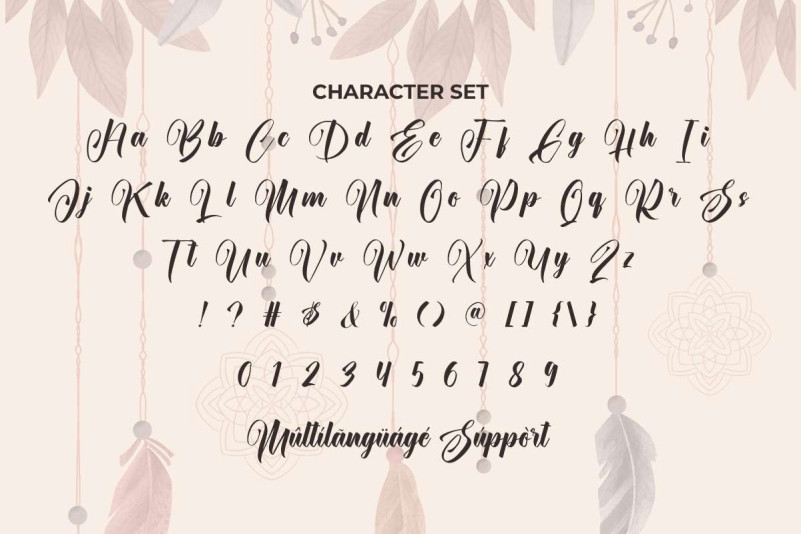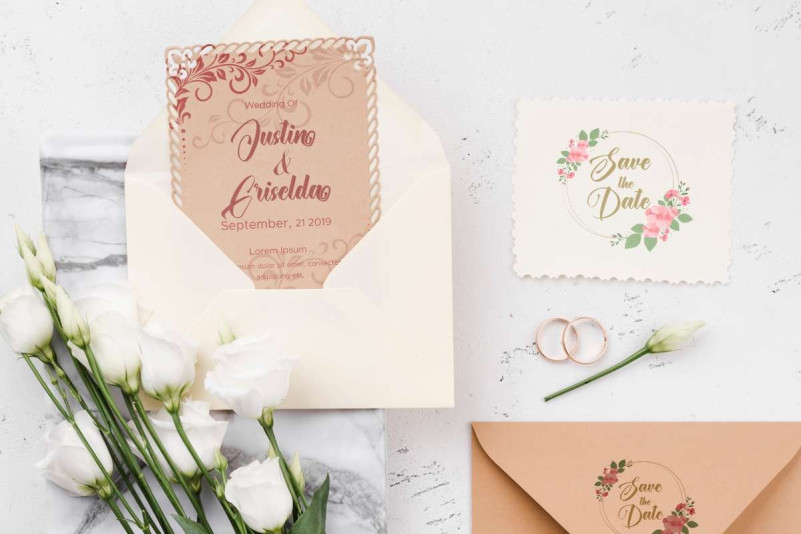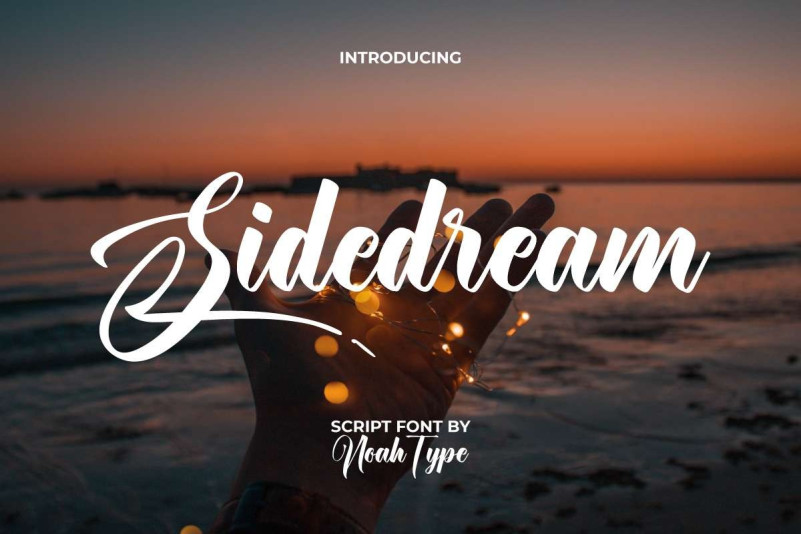
Sidedream Font
Sidedream Script Font is a stunning calligraphy script font with a elegant casual thick brushes. The font will be great for brands, invitations and any other beautiful designs, such as brochure, business card, custom design, invitation, label, magazine catalog, menu, poster, product packaging, quote, title, website, or more.
Sidedream Font includes full set of Uppercase and Lowercase Basic Characters, Numerals, and Punctuation. It also contain Ligature, Alternate, and Swoosh characters that will add perfection and making it suitable for many industries, such as café, cosmetic, fashion, florist, furniture, jewelry, restaurant, skincare, wedding or event organizer, writer, etc.